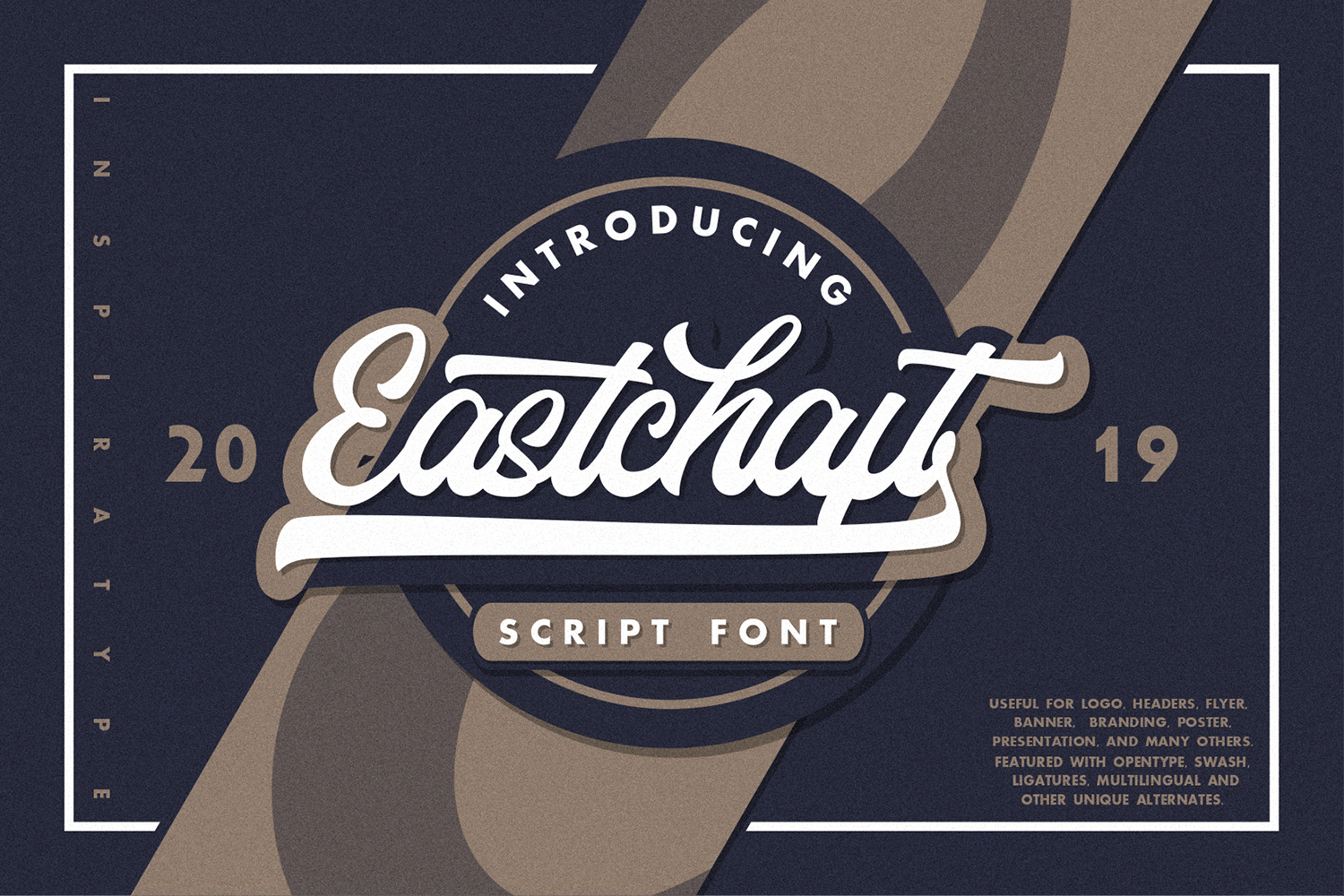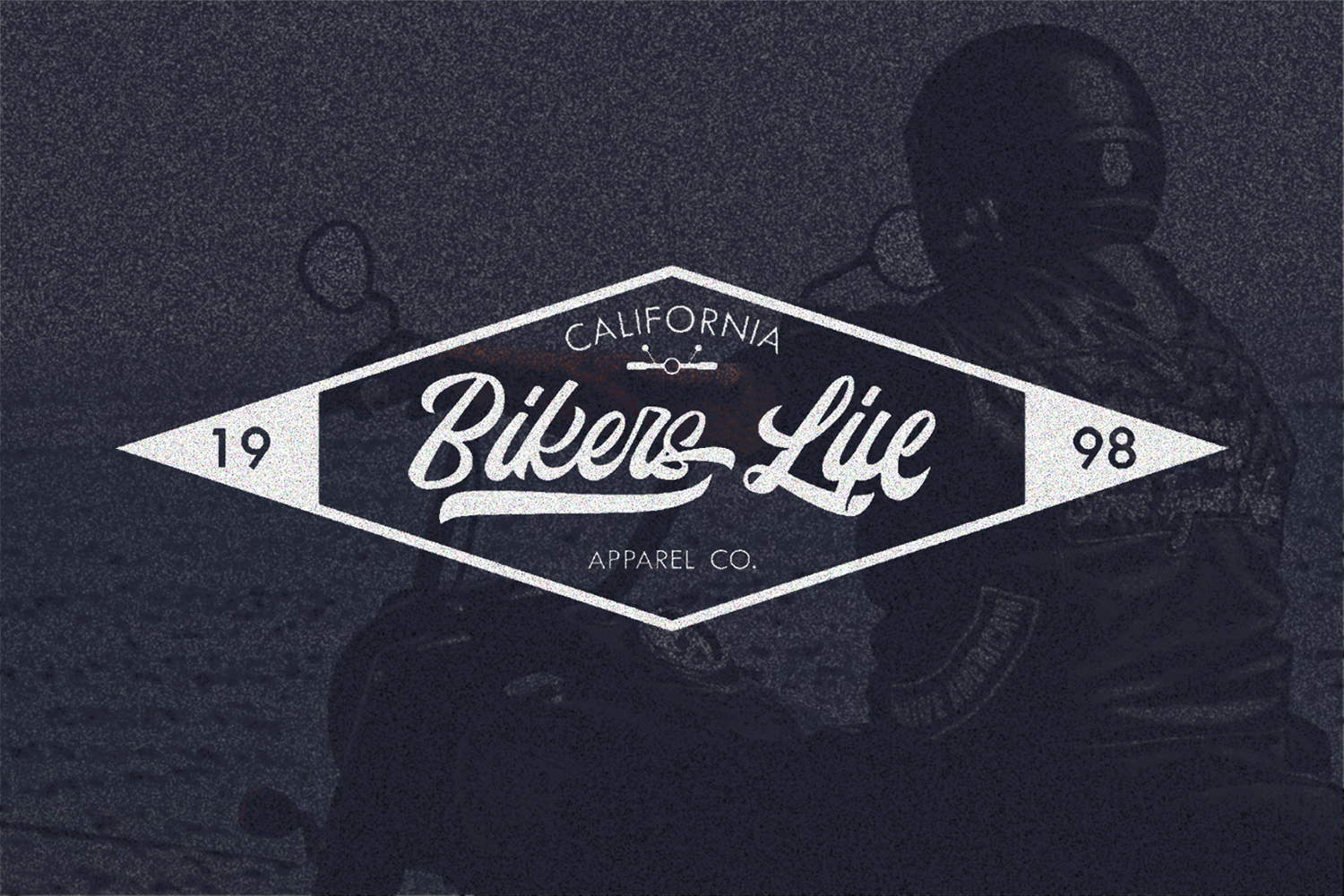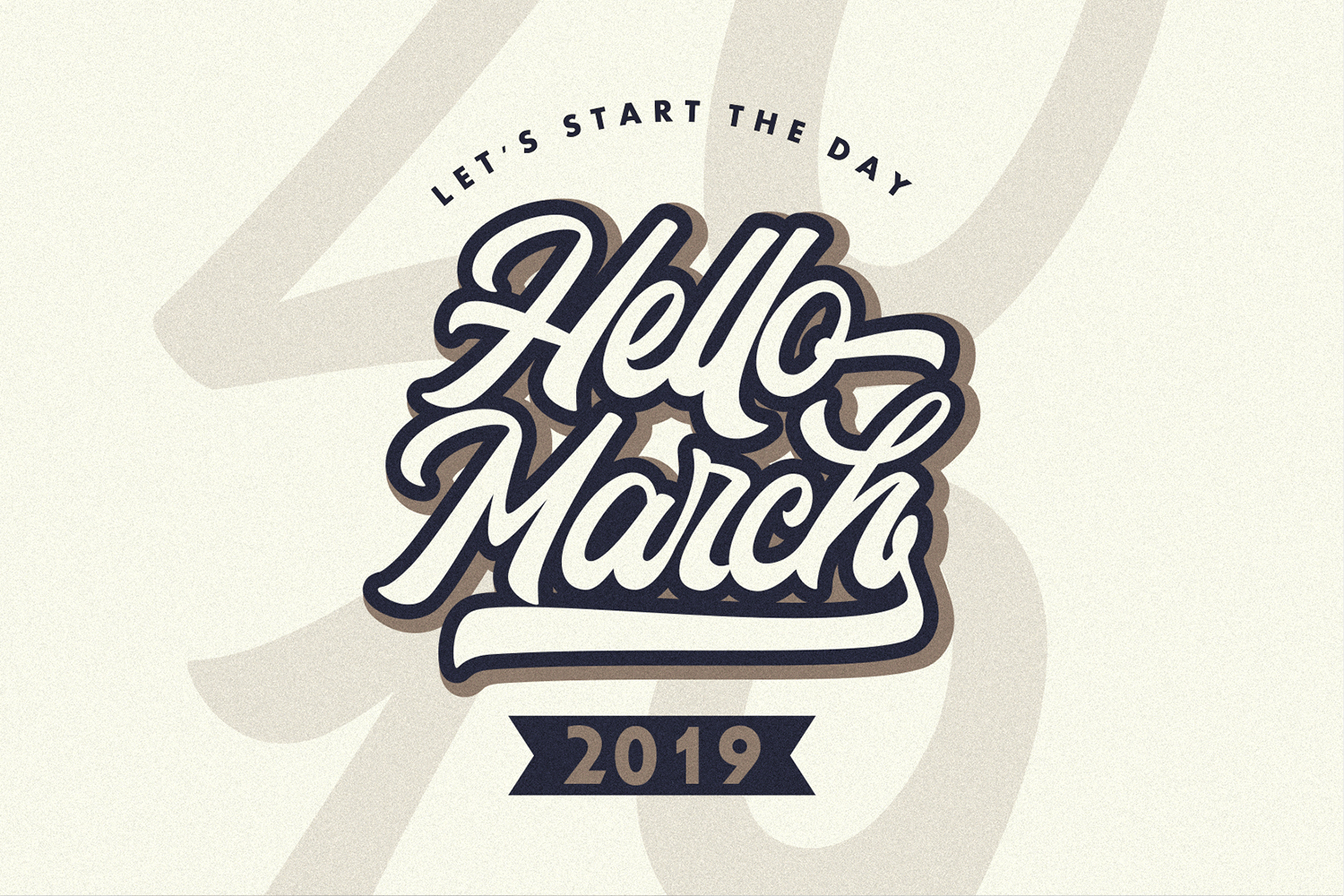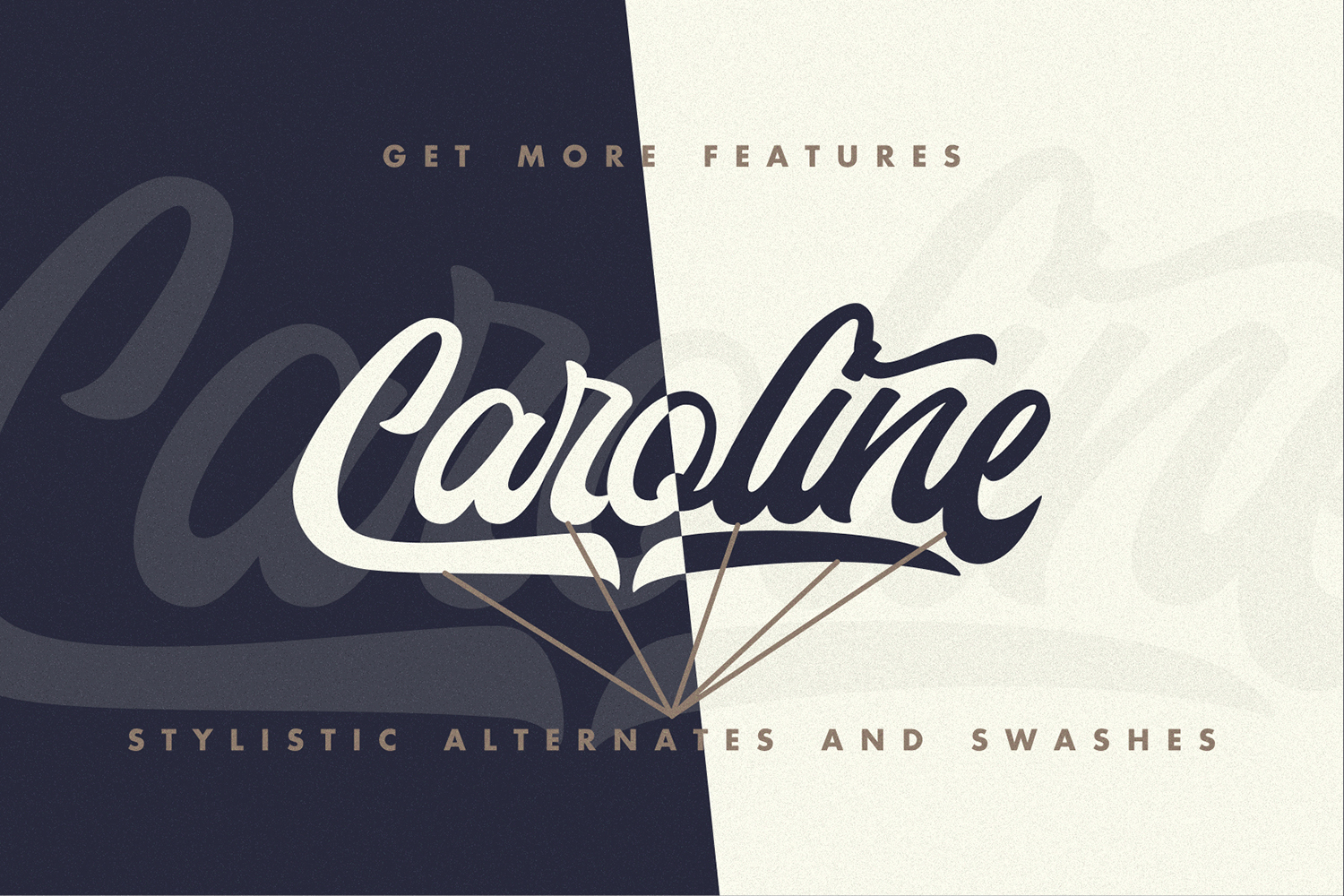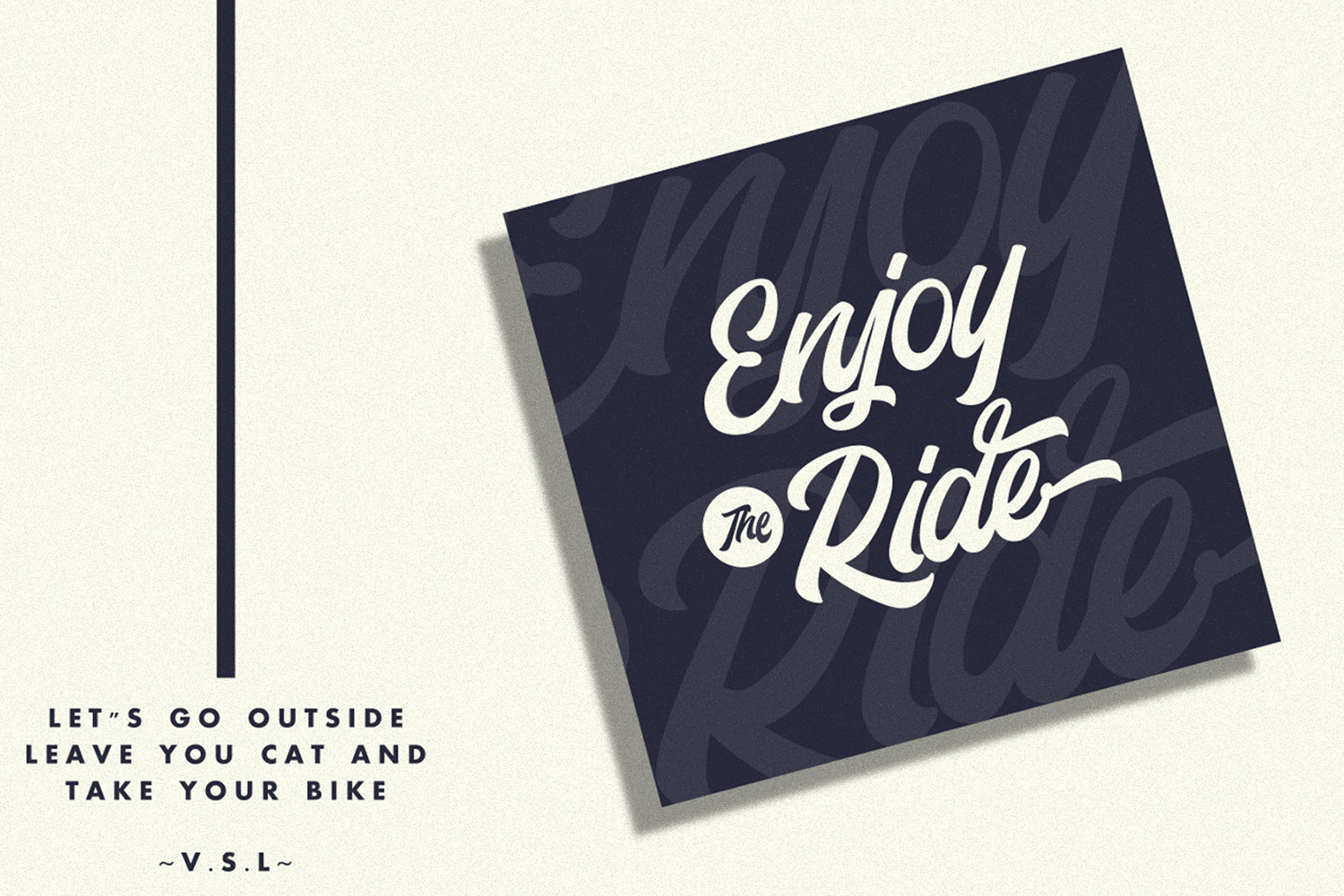
Eastchaft Free Font
Eastchaft Free Font is a stylish typeface that features an elegant calligraphic style and is made by hand, inspired by classic posters. This font will help you create unique design projects and enhance your professional level. Use this font to create memorable posters, wedding invitations, cards, branding, flyers, and more. If you like it don’t forget to check out the full version.
Author: Inspiratype Studio